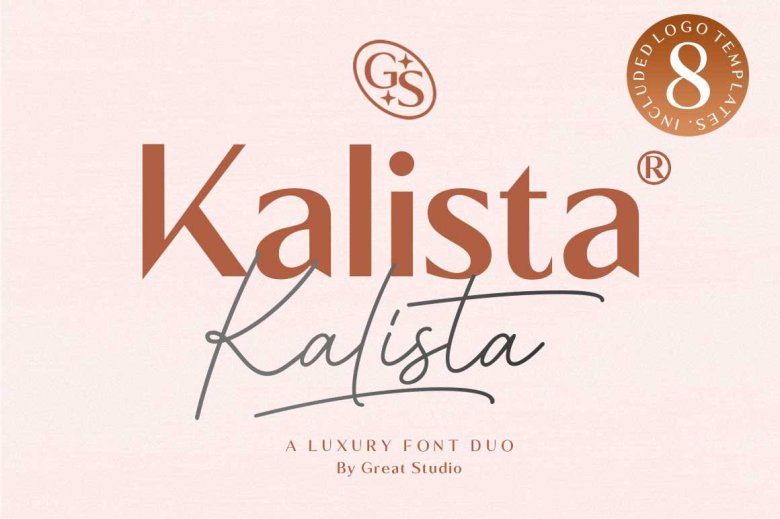
Kalista Font
Kalista Font is a luxury font that pairs well with both modern and elegant designs, including serif and signature style. It goes well together and produces beautiful typography. This hand scratching style allows you to use it in all your design projects, such as logos, designs on labels and designs on packages, blog titles, posters, designs for weddings, designs for social media posts and Instagram designes, cards invitation designs, art quotes, home decorations, designs for book covers and title and etc.
Kalista Font Duo